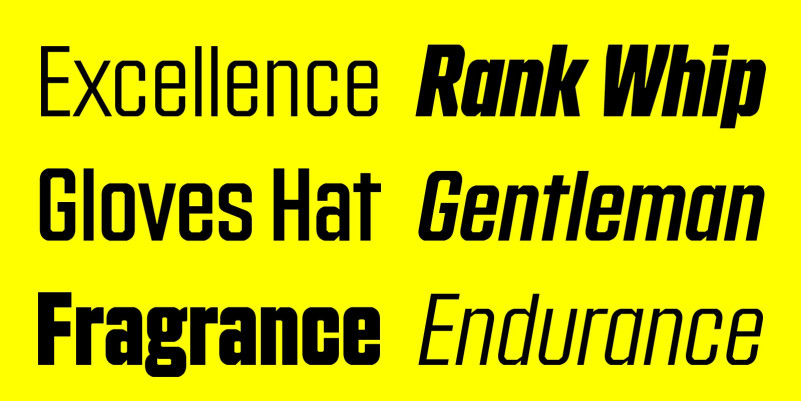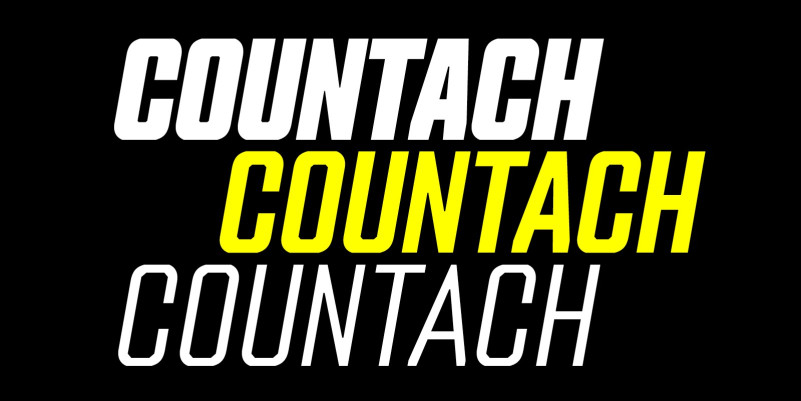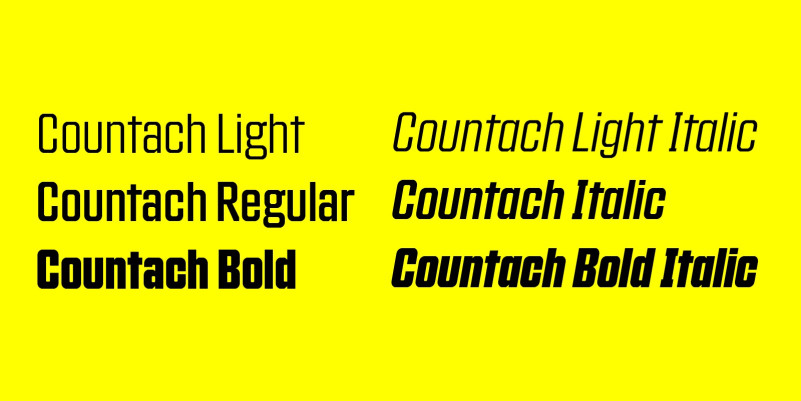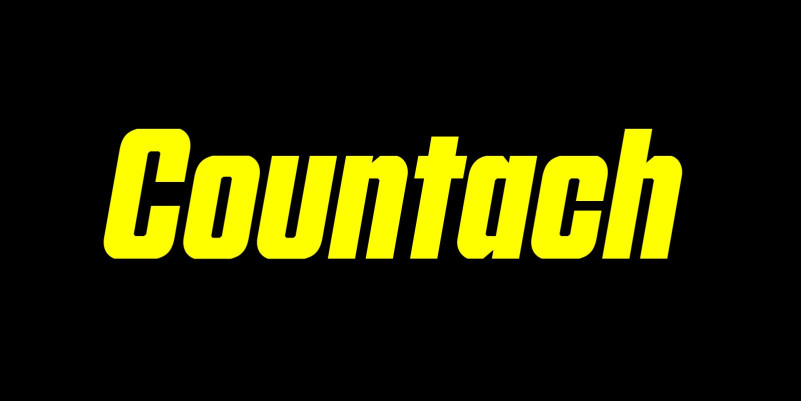
Countach Font Family
Countach Sans Serif Font is a modern and bold sans serif font. The six-style family has a refinement that extends its use far beyond its original purpose, and well-considered details prove that Countach is more evolved than type built on a rigid and modular grid. Note the tapering where bowls meet stems, the cropped ends of diagonal strokes that allow a tighter fit, and the unexpected shapes for ‘g’ and ‘y’. The glyph set is expansive, too, with an Extended Latin and Cyrillic character set, handy index numbers with white and black backgrounds, and alternate glyphs in Latin and Cyrillic.